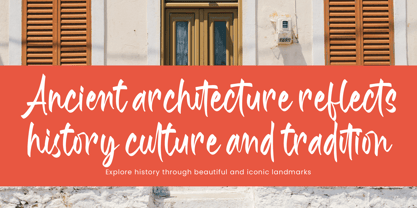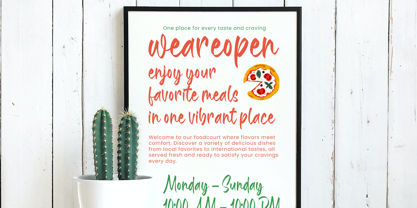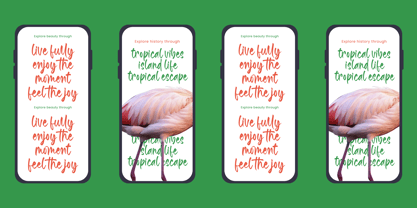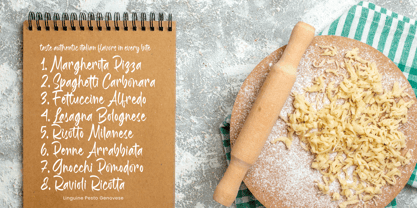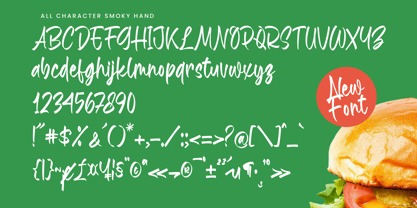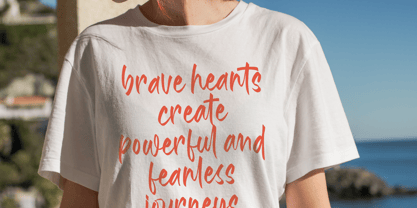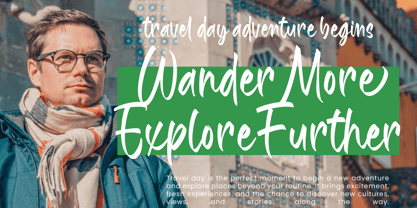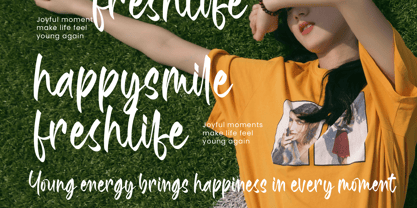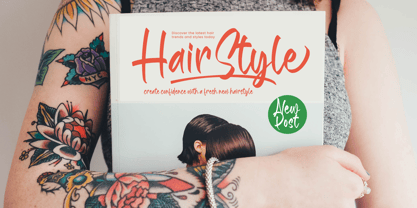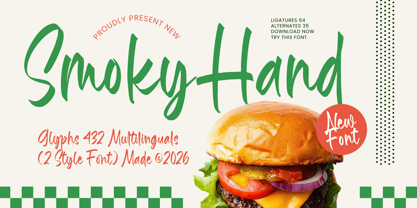
Smoky Hand
The Smoky Hand Font Family was designed by Heru Utama Putra and published by Letterena Studios. Smoky Hand contains 2 styles and family package options. More about this family
Smoky Hand – Stylish Handwritten Font Smoky Hand is a bold and expressive handwritten script font designed to add a natural, energetic, and authentic touch to your creative projects. Inspired by casual brush lettering, this typeface features smooth strokes and dynamic character shapes that bring warmth and personality to any design. Perfect for branding, packaging, logos, posters, social media graphics, and especially food-related designs, Smoky Hand delivers a friendly and appetizing visual appeal. Its versatility makes it ideal for both modern and playful themes, helping your message stand out with confidence and style. This font comes with an extensive set of glyphs, ligatures, and stylistic alternates, allowing designers to create unique and customized typography effortlessly. Whether you're working on restaurant branding, café menus, or eye-catching headlines, Smoky Hand ensures a distinctive and professional result.